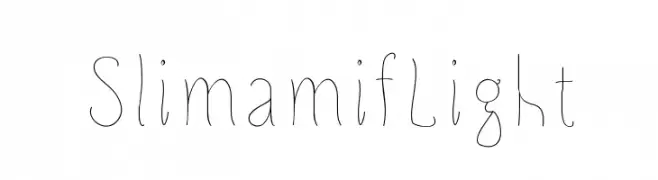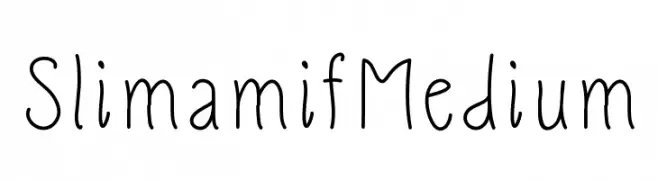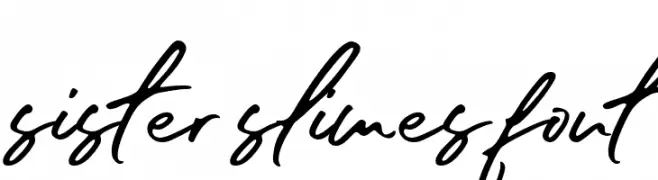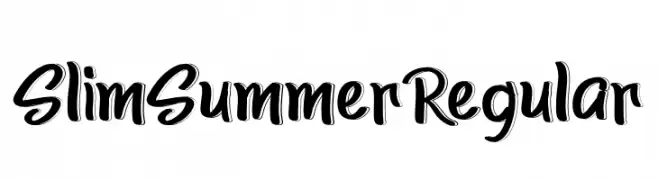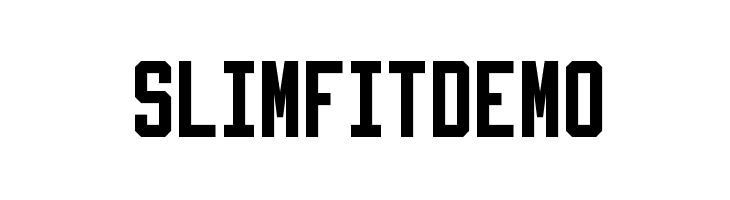
A playful, handwritten font with a whimsical and casual style.
A thin, whimsical handwritten font with a playful and informal style.
A playful, handwritten font with tall, slender letterforms and slight stroke variation.
A bold, distressed font with a grunge aesthetic and irregular edges.
A bold, condensed font with an industrial and retro feel.
A bold, geometric font with a modern and streamlined design.
A bold, geometric font with a modern, industrial style.
A bold, handwritten-style font with dynamic, slanted characters and high contrast.
A modern, rounded font with a playful and approachable style.